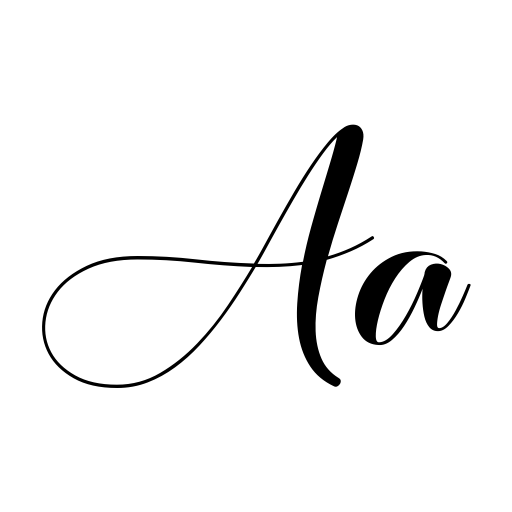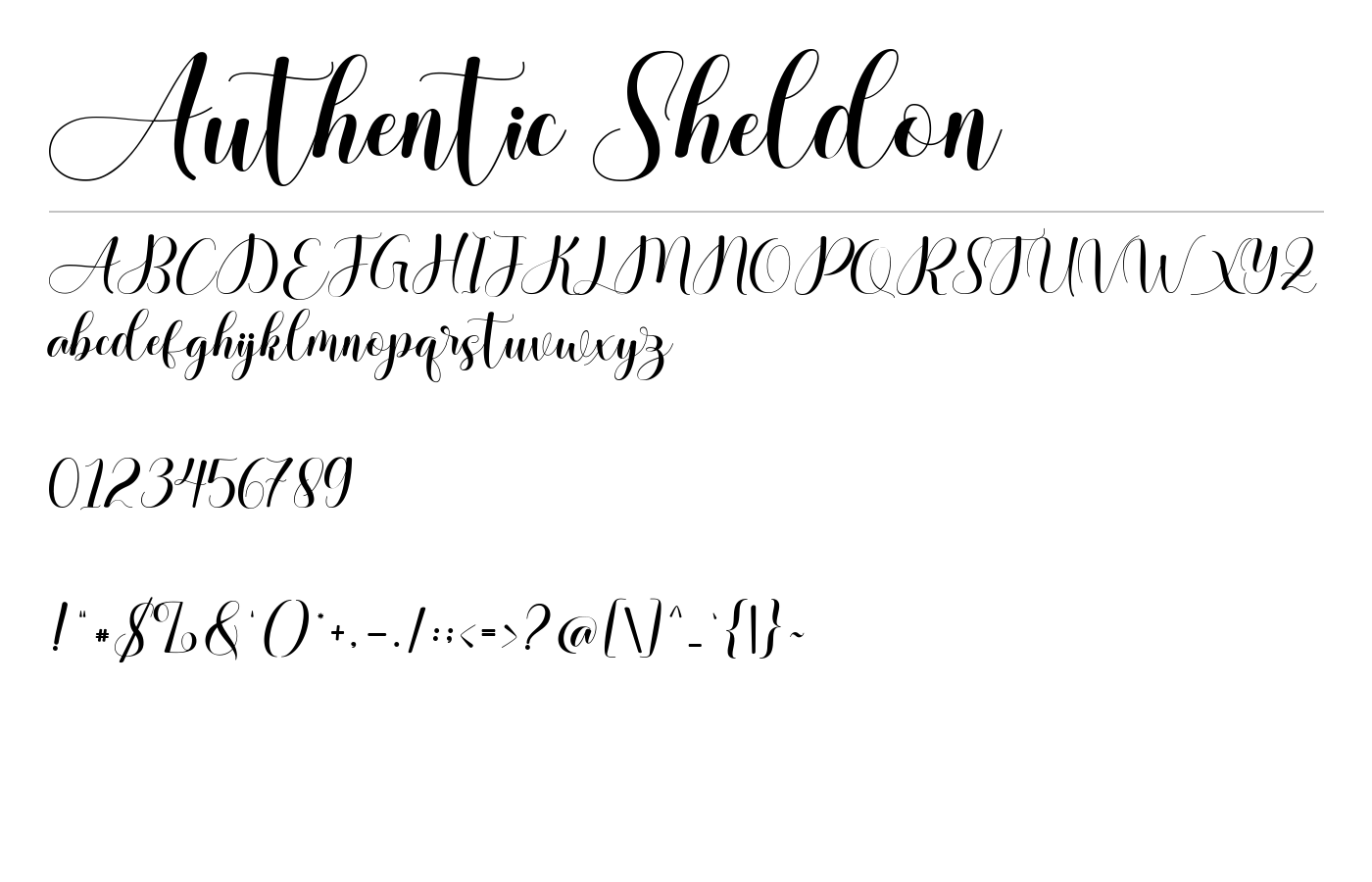
Authentic Sheldon is an elegant script font with flowing, delicate strokes and a high contrast between thick and thin lines, giving it a graceful and sophisticated feel. Its tall, slender letterforms and decorative swashes make it ideal for luxury branding, invitations, and stylish headlines where a refined, artistic touch is desired.
Authentic Sheldon Font
About Authentic Sheldon Font
| Designer | Rotterlab Studio |